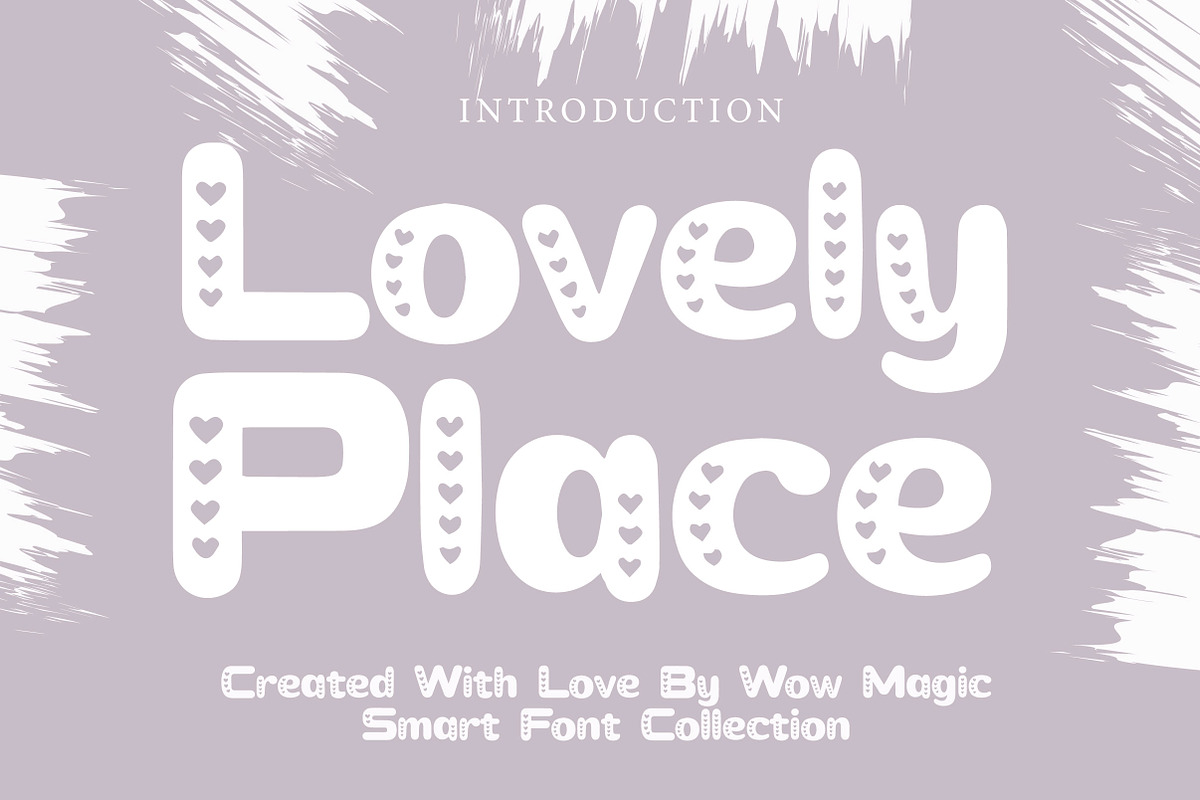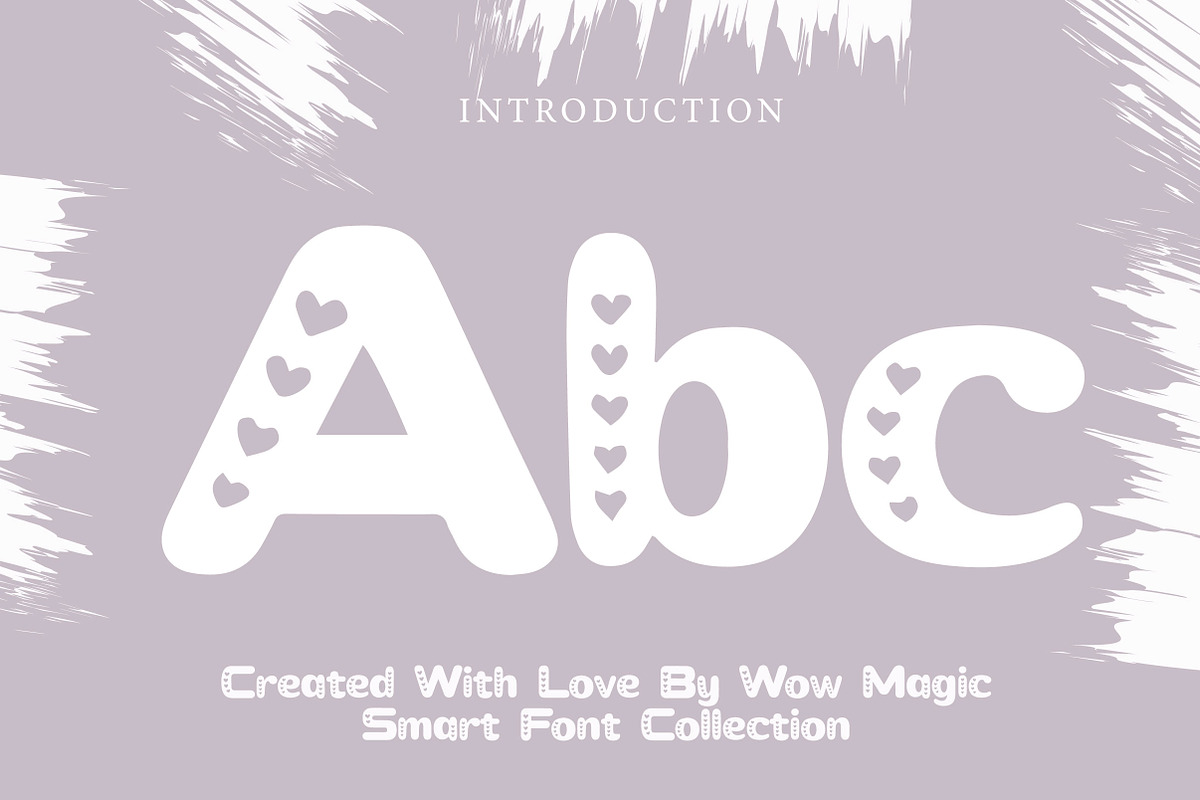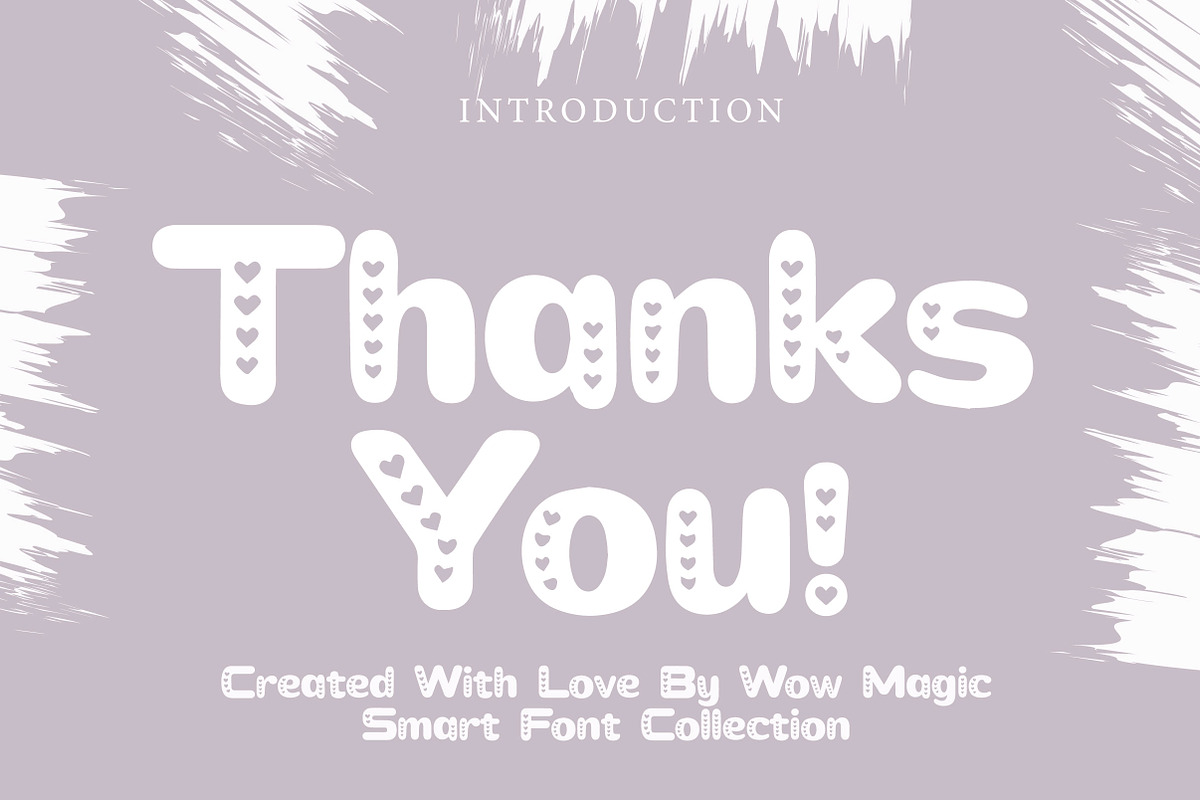
Lovely Place
Lovely Place – Cute Romantic Display Font
Lovely Place is a cute, playful, and romantic display font with adorable heart details, perfect for Valentine designs, invitations, branding, packaging, and lovely creative projects.
Lovely Place is a sweet and charming display font designed to bring warmth, love, and personality into your designs. With its rounded shapes, playful letterforms, and decorative heart accents, this font creates a soft and lovable look that instantly stands out.
Its cheerful and romantic style makes Lovely Place perfect for projects that need a cute and expressive touch. Whether you are designing Valentine’s Day cards, wedding invitations, beauty branding, gift packaging, social media graphics, stickers, or cute logo concepts, this font helps your typography feel more heartfelt, creative, and memorable.
The heart details inside the letters add extra charm and make every word look more unique and emotional. Suitable for both print and digital use, Lovely Place is a beautiful choice for designers who want a font that feels romantic, friendly, and full of sweetness.
Perfect For Valentine’s Day designs Wedding invitations Greeting cards Beauty and feminine branding Gift packaging Social media graphics Stickers and labels Cute logos and headlines Romantic quotes Craft projects Font Features Uppercase letters Lowercase letters Numbers & punctuation Cute romantic style Decorative heart details Playful and friendly look Perfect for display use